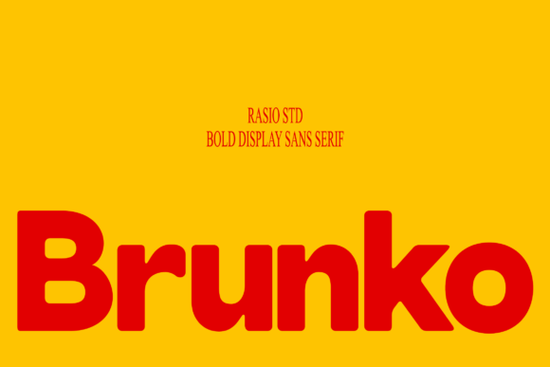
If you're on the lookout for a font that can add a bold and playful touch to your designs, the Brunko Font is worth considering. This heavy rounded display typeface is perfect for making a strong visual impact, whether you're working on branding, posters, or packaging.
What Makes Brunko Font Stand Out?
Brunko is designed with a strong geometric construction, featuring playful curves and impactful letterforms. Its thick sans serif style gives it a bold, retro-inspired appearance, making it ideal for projects that need a standout, energetic look. The font includes uppercase, lowercase, numerals, and punctuation, offering versatility for a wide range of creative applications.
Why Choose Brunko for Your Design Projects?
When it comes to choosing a font for your design, Brunko stands out for several reasons:
- Versatility: With its comprehensive character set, Brunko can be used for a variety of design needs, from branding and promotional typography to posters and packaging.
- Impactful Aesthetics: The thick, rounded edges and smooth curves make Brunko a visually striking choice, perfect for creating eye-catching headlines and logos.
- Retro-Inspired Style: The font's bold, retro aesthetic adds a unique and nostalgic feel to your designs, making it a great fit for food branding, vintage-themed projects, and more.
How Can You Use Brunko in Different Design Projects?
Brunko's versatile nature makes it suitable for a wide range of design projects. Here are a few ideas on how you can incorporate this font into your work:
- Branding and Logos: Use Brunko to create memorable and impactful logos. Its bold and playful style can help your brand stand out and leave a lasting impression.
- Posters and Flyers: Add a dynamic and energetic touch to your posters and flyers. Brunko's thick, rounded letters make it perfect for creating attention-grabbing headlines and text.
- Packaging Design: Enhance your product packaging with Brunko's bold and distinctive style. It works well for food and beverage packaging, as well as other consumer goods.
- Web and App Design: Incorporate Brunko into your web and app designs for a modern, yet retro-inspired look. It can be used for headings, buttons, and other UI elements.
Comparing Brunko with Other Sans Serif Fonts
While Brunko has its unique charm, it's helpful to compare it with other popular sans serif fonts to see which one best fits your project. For example, Arnovia Expanded offers a more condensed and elegant look, while Morning Sunshine provides a lighter, more casual feel. Monteo is another option with a sleek and modern design. Each of these fonts has its own strengths, so consider the specific needs of your project when making your choice.
Tips for Using Brunko Effectively
To get the most out of Brunko in your designs, here are a few tips:
- Balance with Other Fonts: Pair Brunko with simpler, more legible fonts for body text to create a balanced and harmonious design.
- Color Choices: Experiment with different color schemes to highlight Brunko's bold and playful nature. Bright, vibrant colors can complement its energetic style.
- Spacing and Kerning: Adjust the spacing and kerning to ensure the text is readable and visually appealing. This is especially important for longer texts and headlines.
Final Thoughts
The Brunko Font is a fantastic choice for designers, crafters, and small businesses looking to add a bold and playful touch to their projects. Its versatile character set and retro-inspired style make it a valuable addition to any design toolkit. Whether you're working on branding, posters, or packaging, Brunko can help you create designs that stand out and leave a lasting impression.